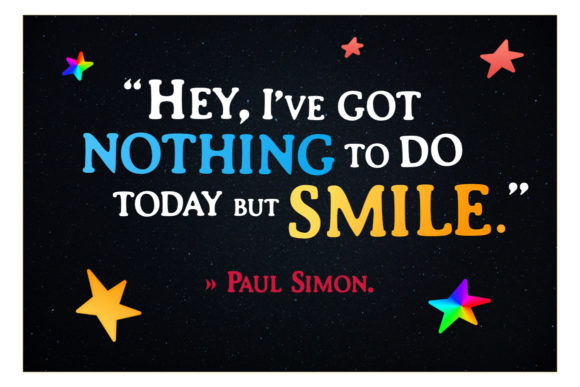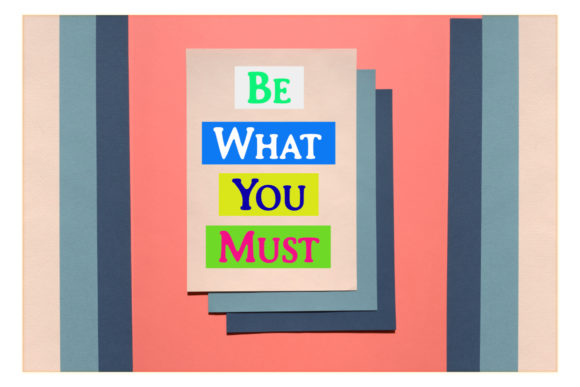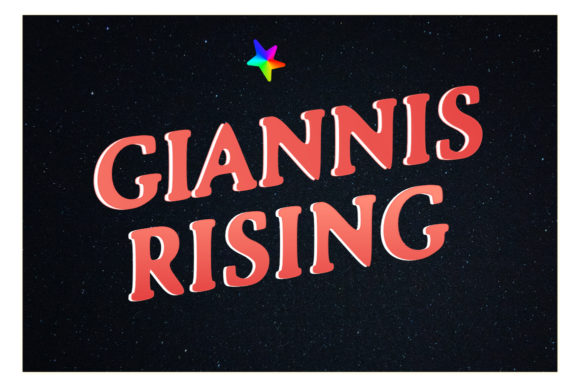
Giannis Rising Font
The Giannis Rising is an all caps casual and versatile serif font. It comes in two styles: regular and italic which can be used to add a striking touch to your designs.
It’s suitable for branding, advertising, displays, posters, logos, movie titles, book covers, and much more!